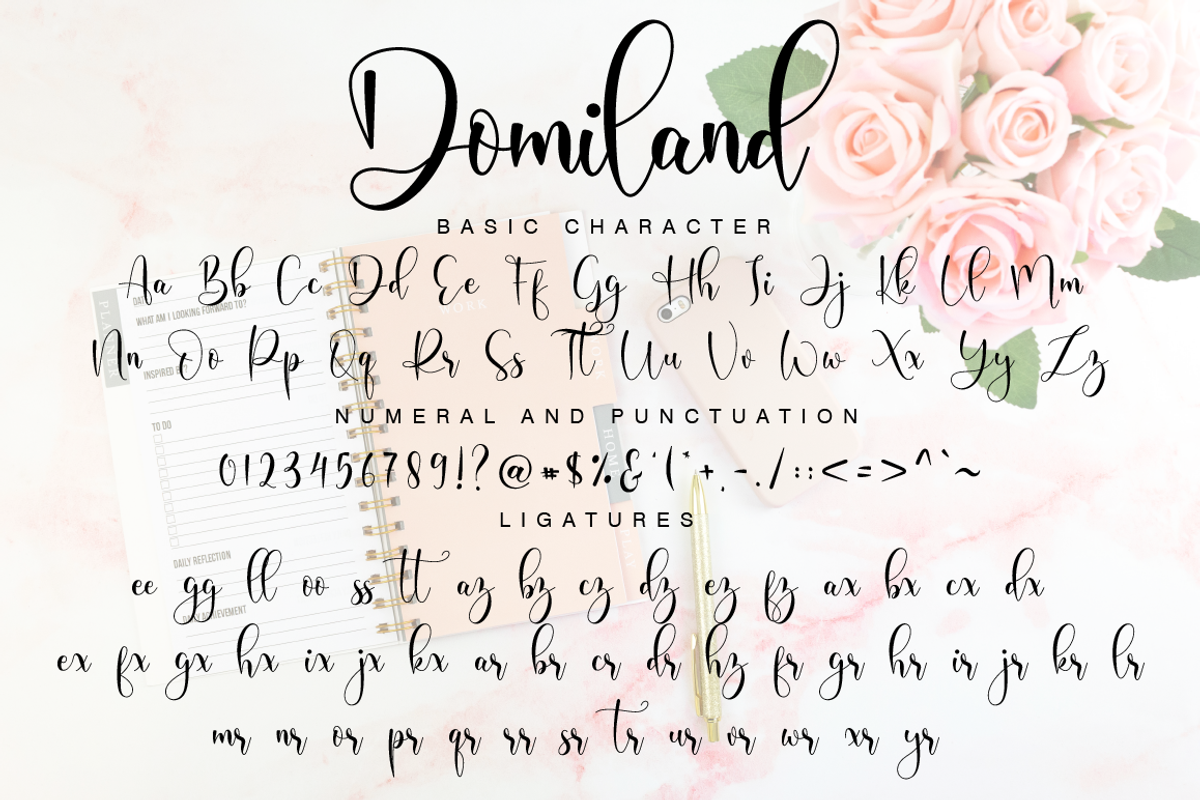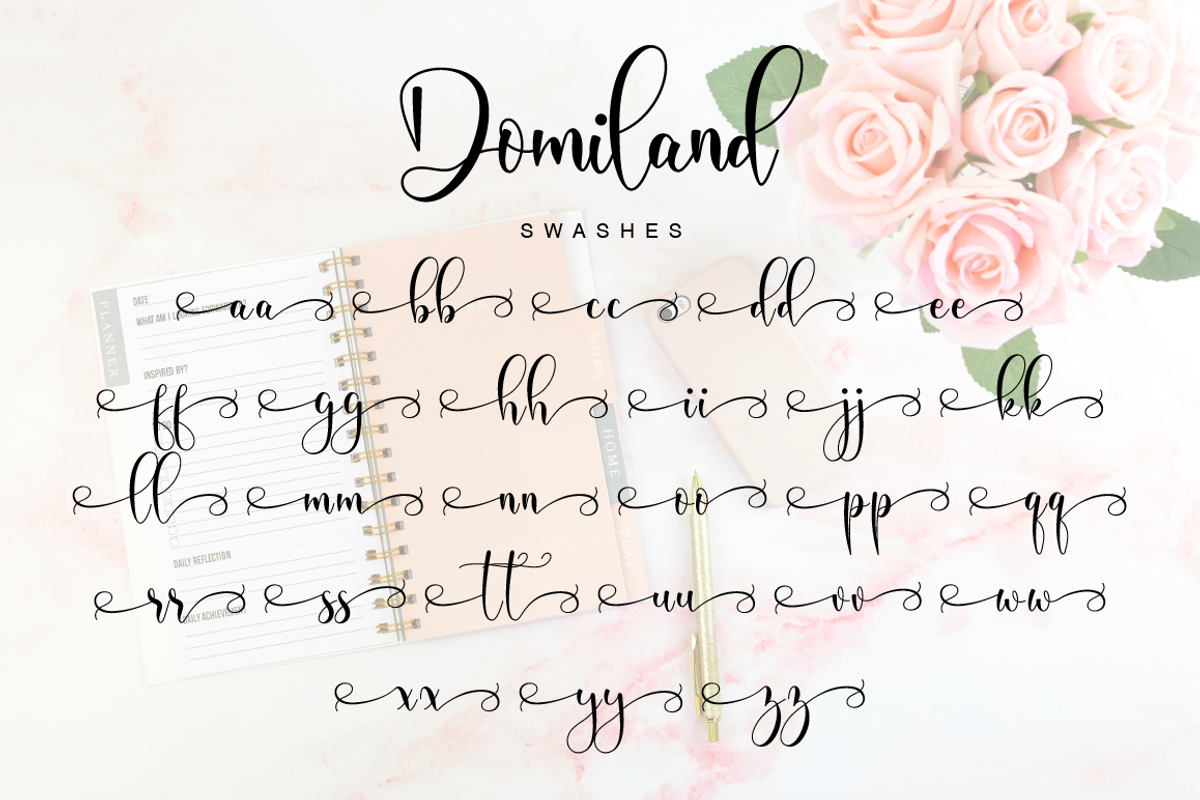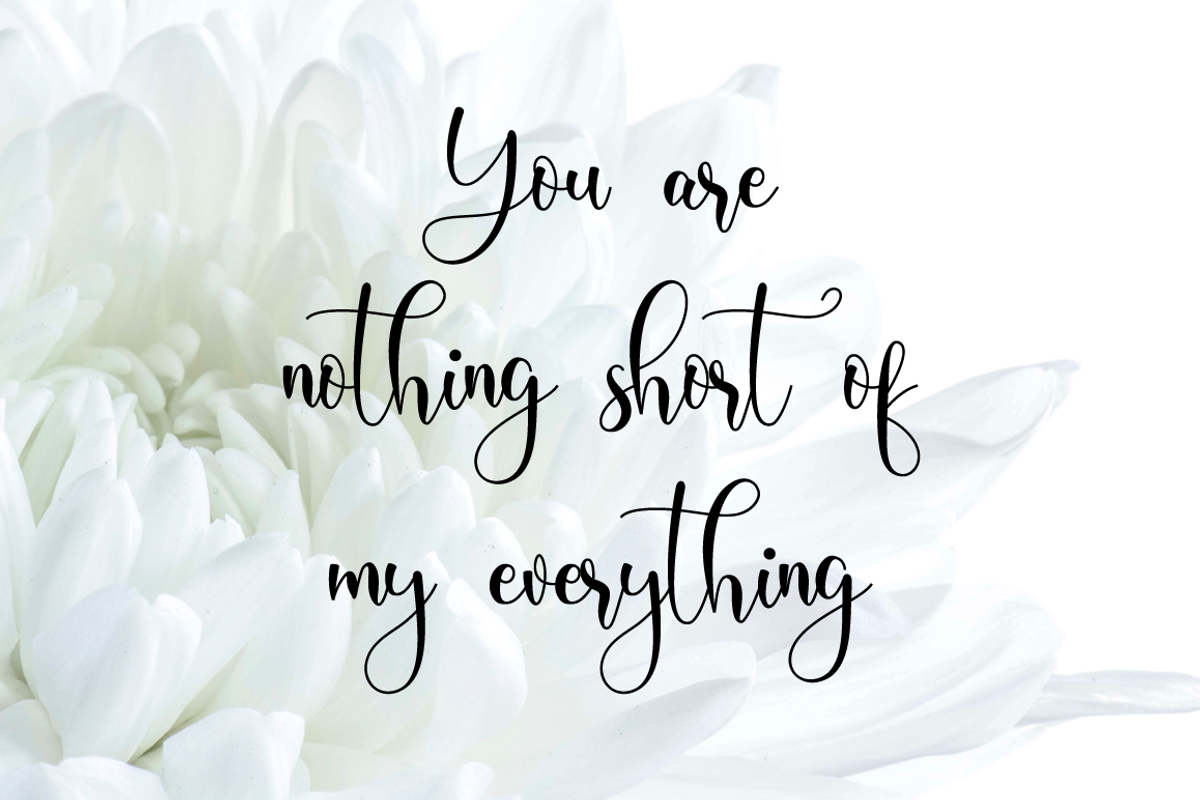
Domiland Script
Domiland is a beautiful script font that has a classy, elegant, and modern look. Fall in love with its flowing curves!
Each Font Has:
- Modern Handwritten Font
- Beautiful Swash (Ending tail)
- Beautiful Titling (Beginning tail)
- Special Ligatures